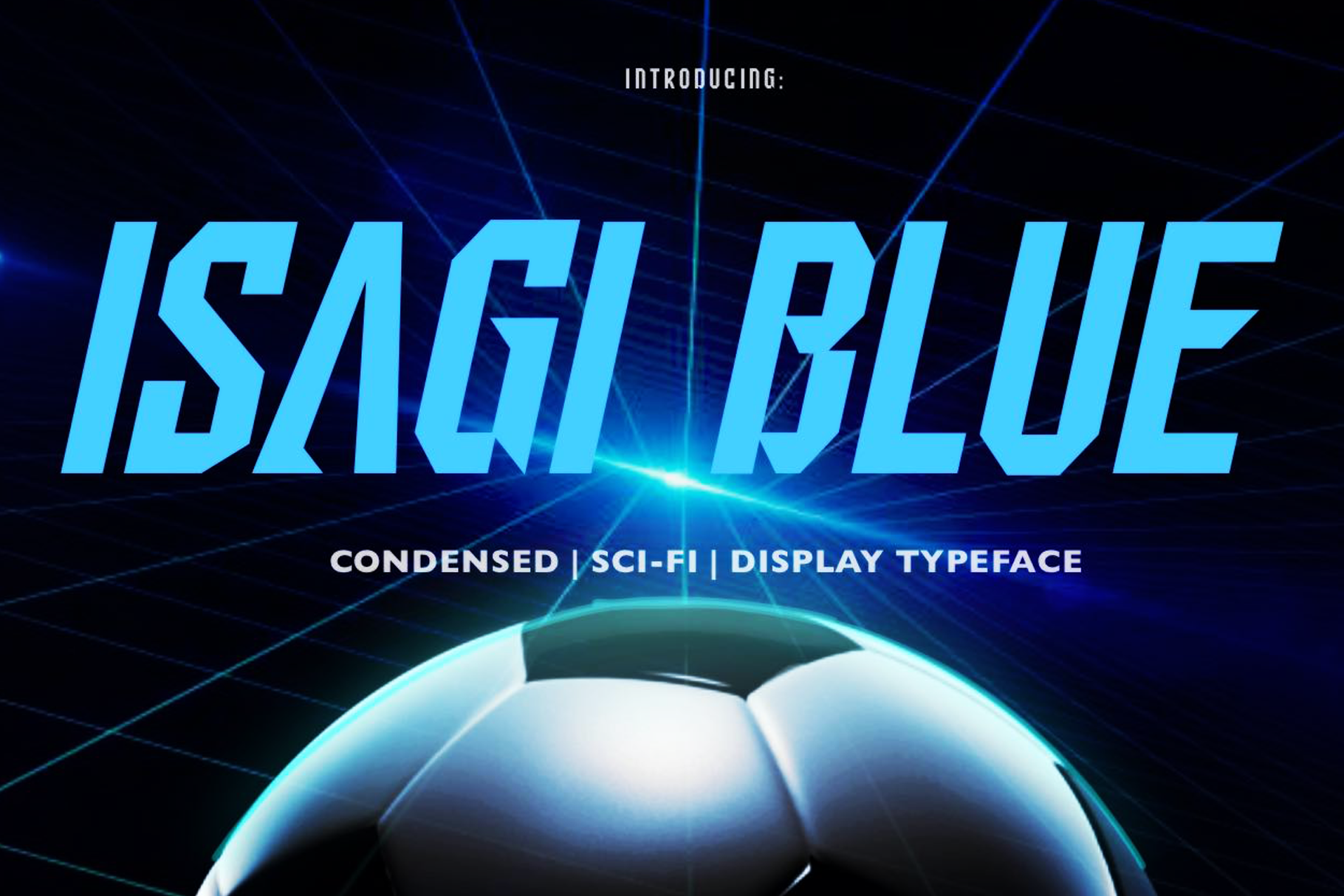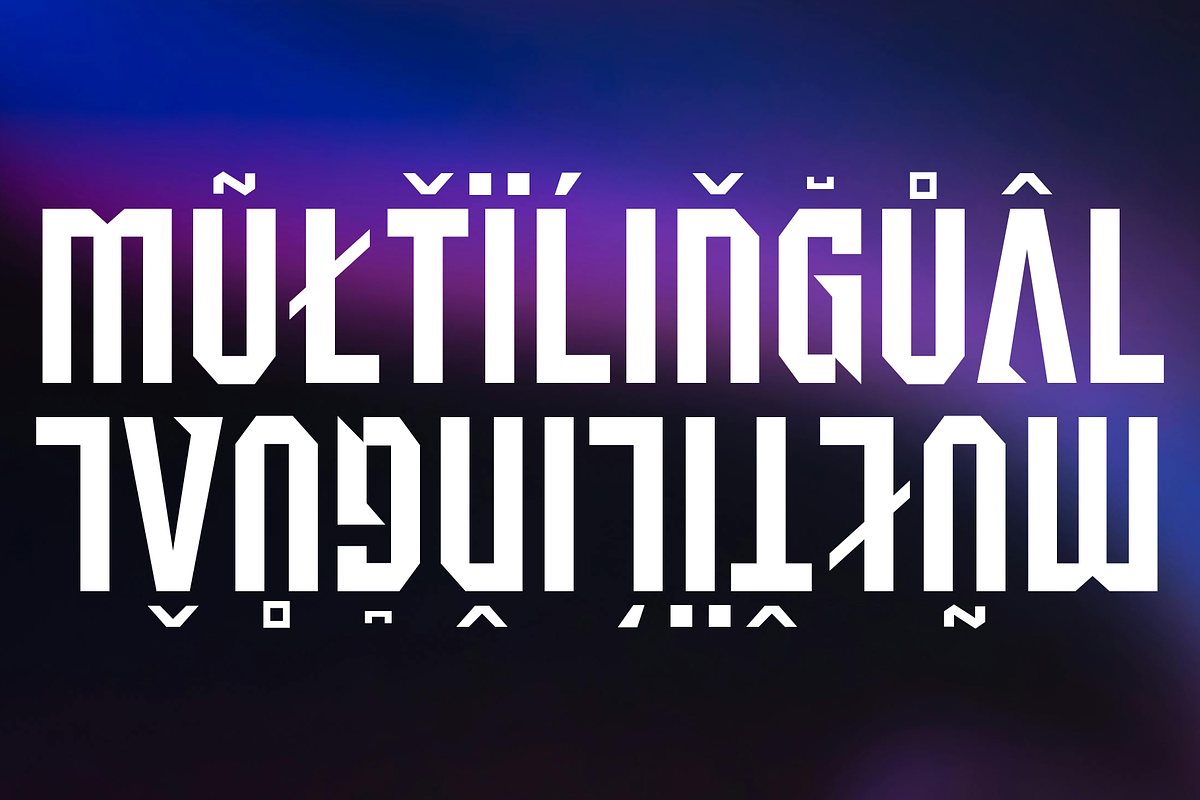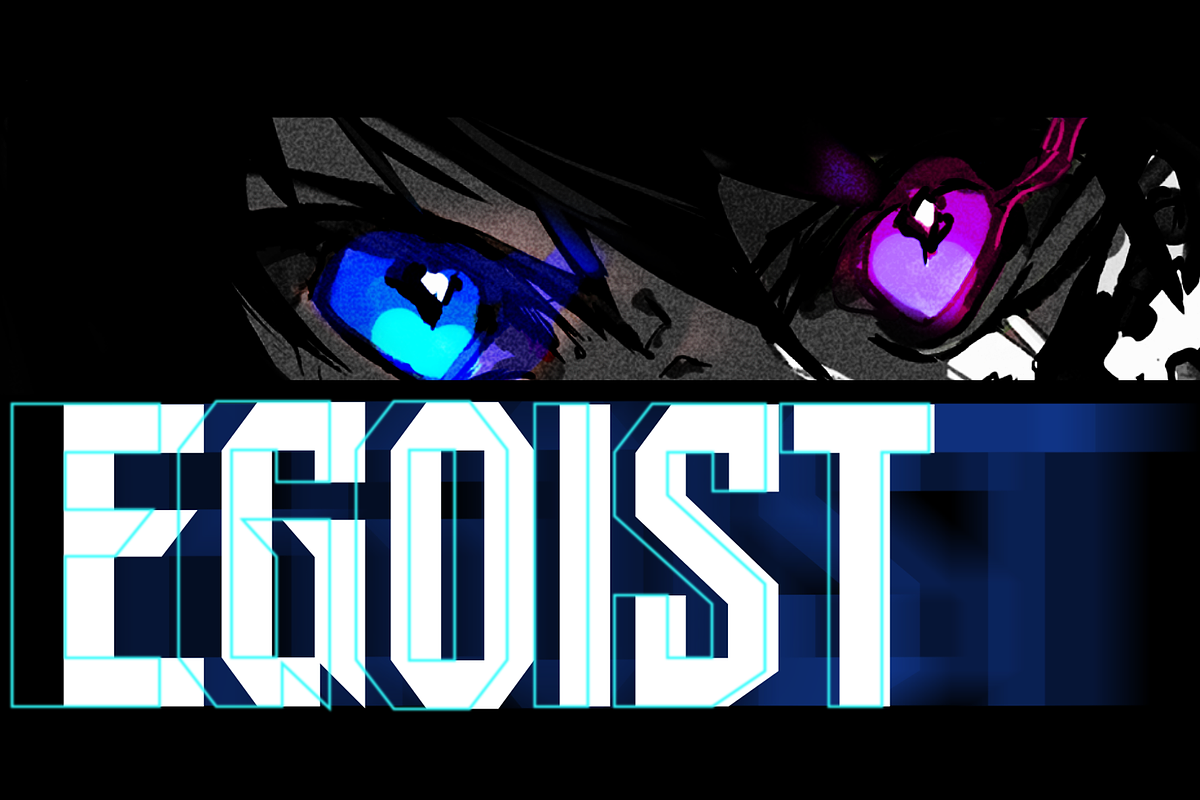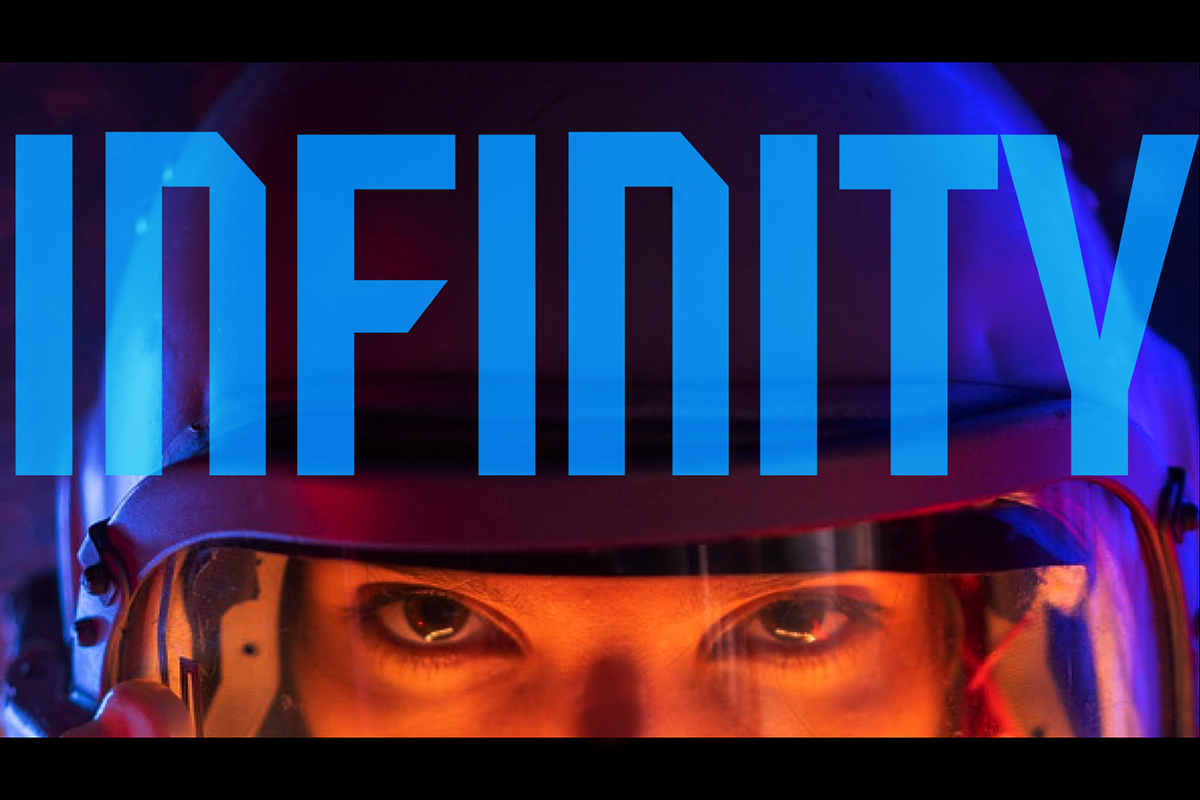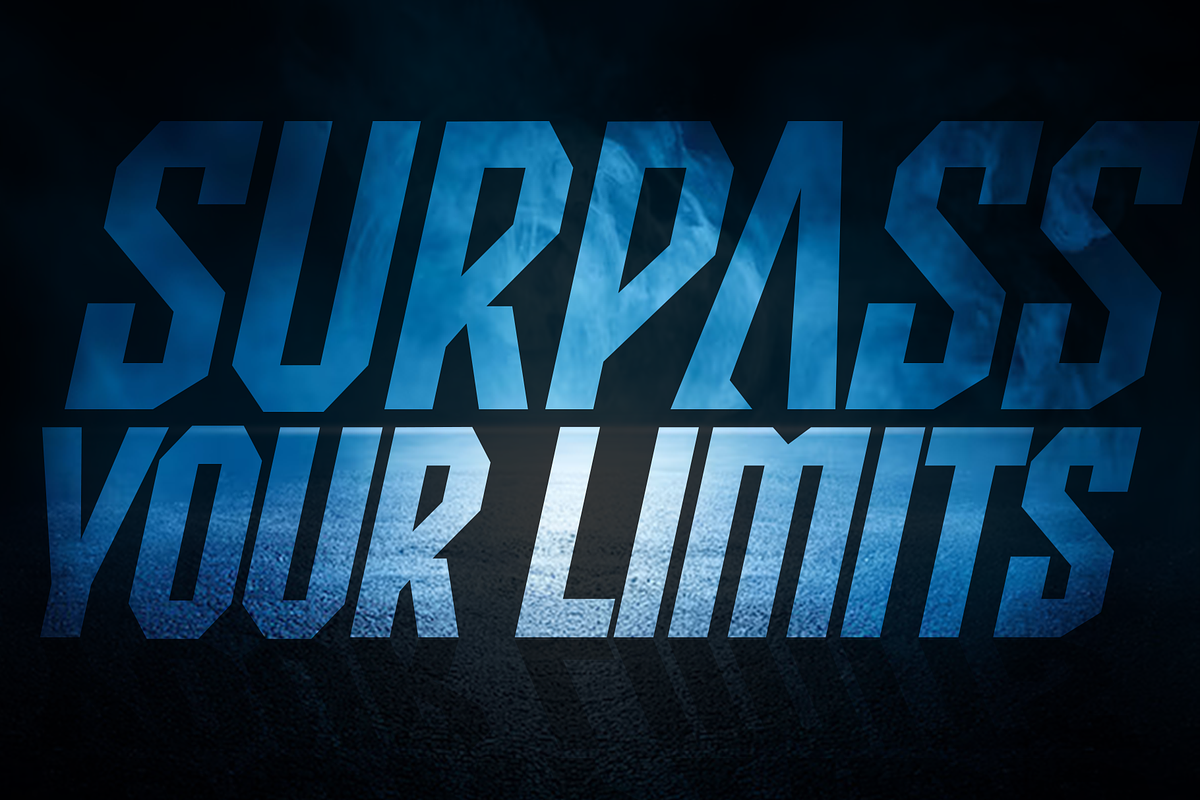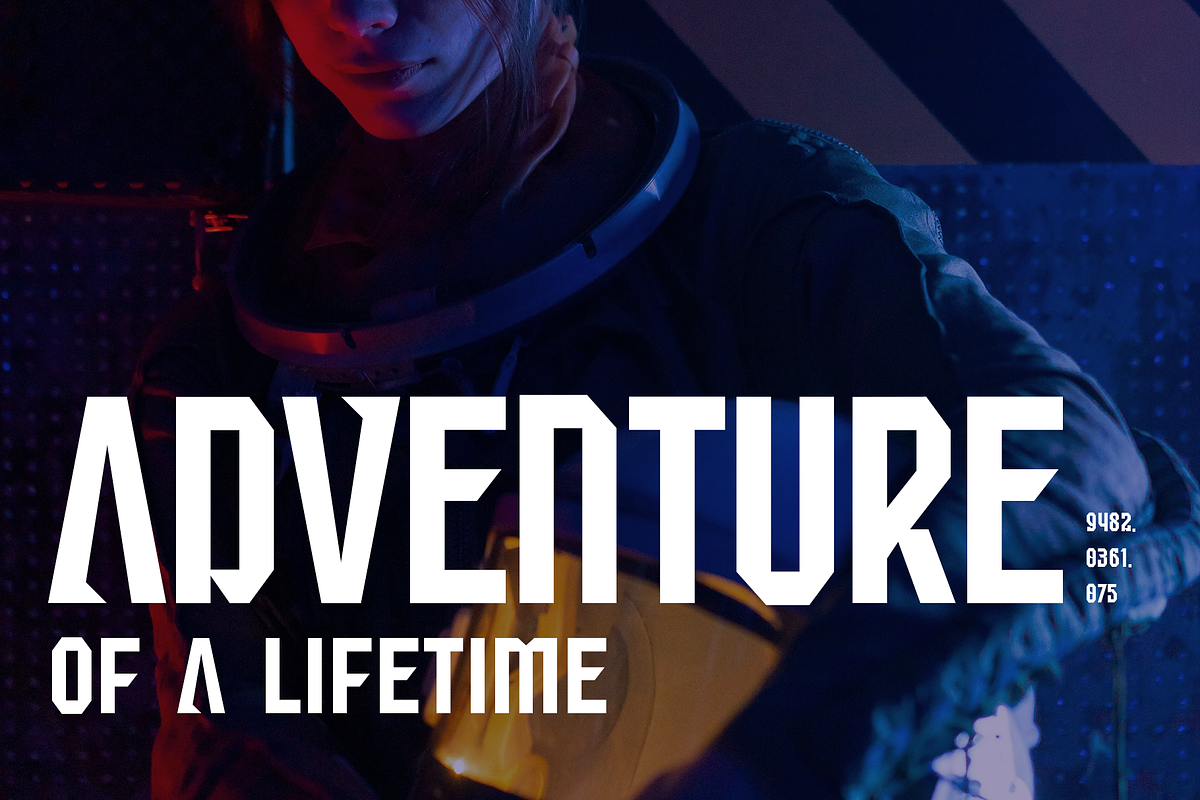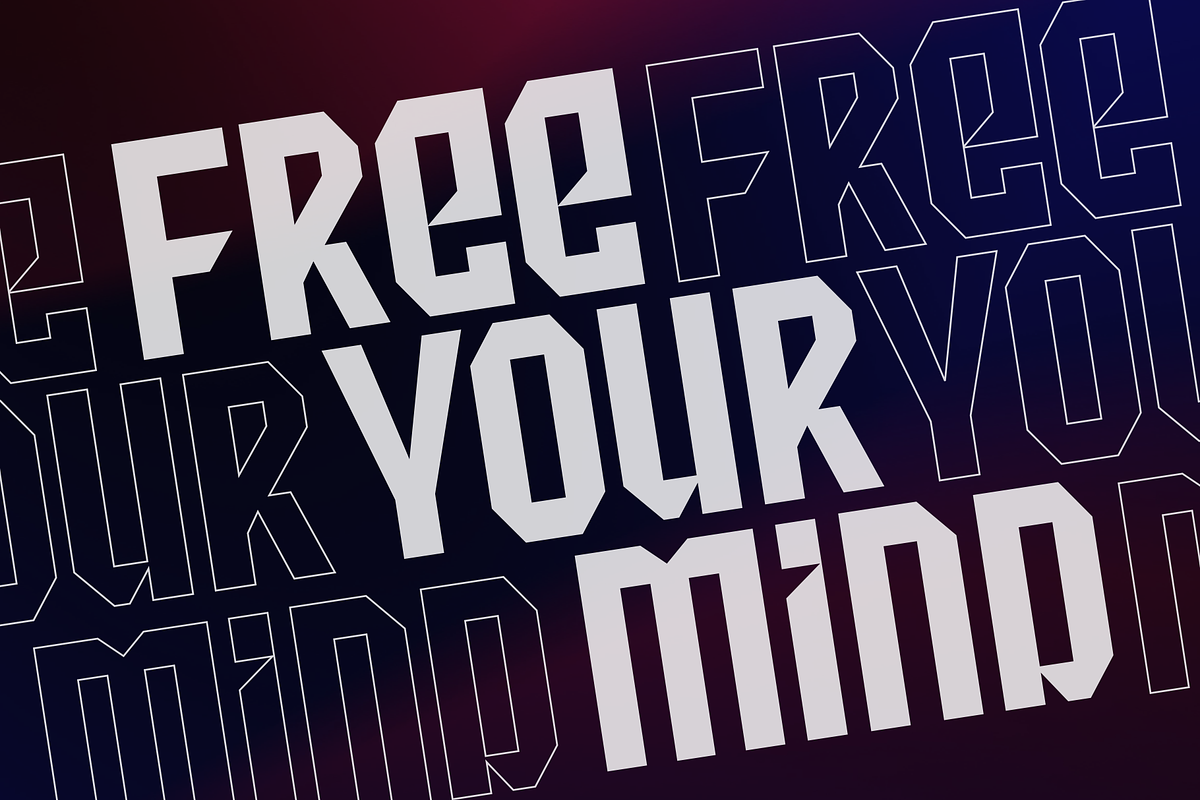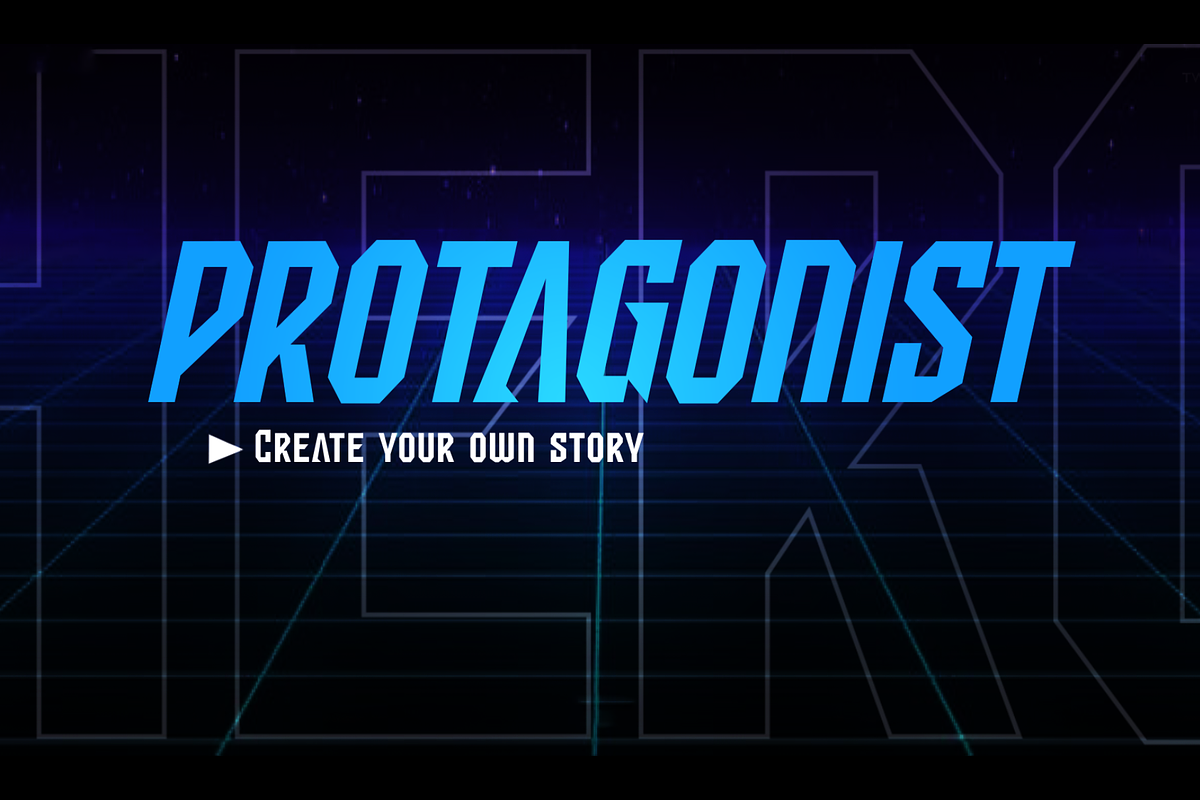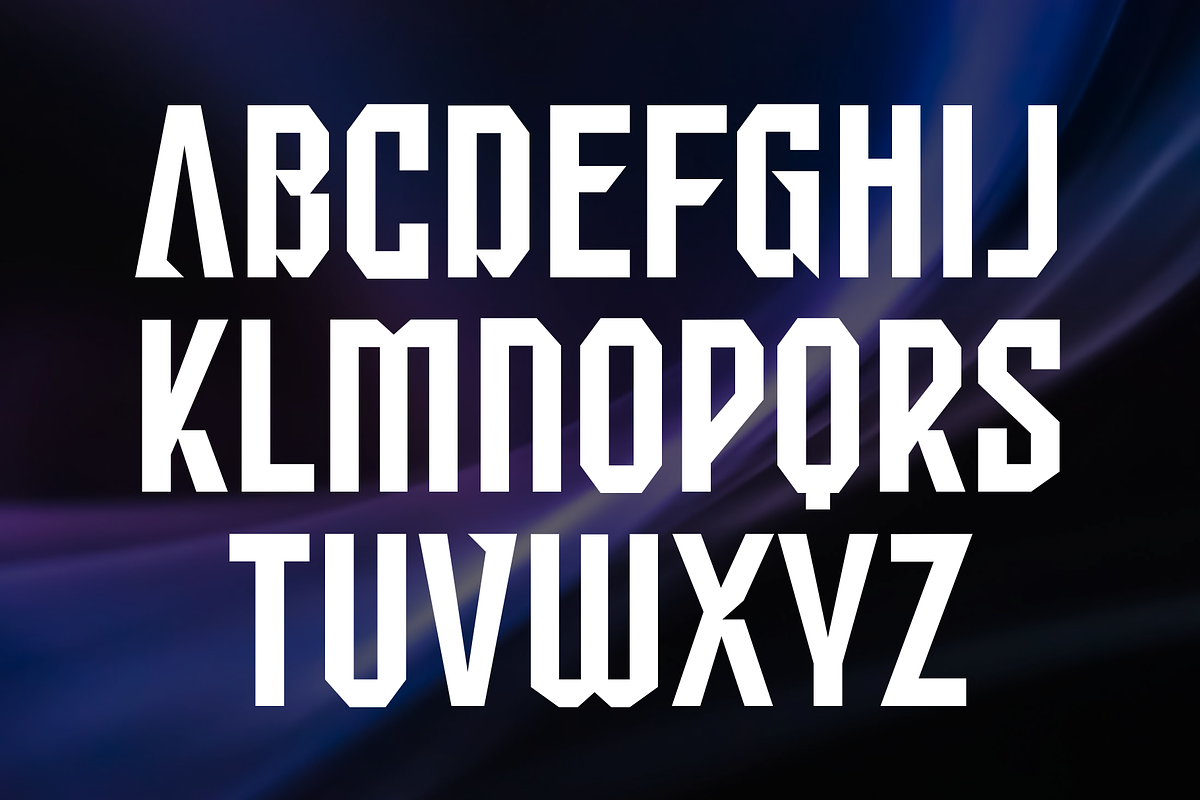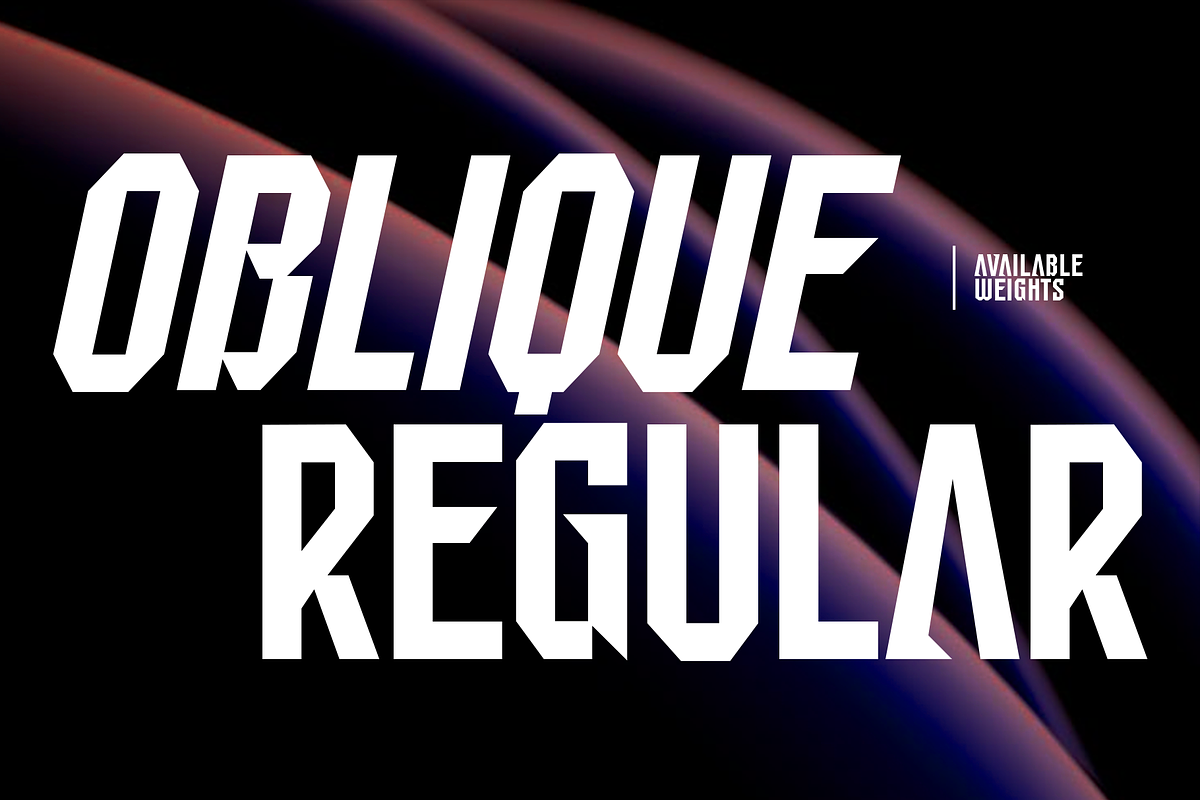
Isagi Blue- Futuristic Typeface
Isagi Blue is a bold, futuristic condensed display typeface inspired by the hit anime series Blue Lock. Combining sleek sci-fi style, athletic edge, and dynamic energy, this font brings a sharp, high-impact presence to any design.
Crafted for captivating headlines, sports branding, and jersey-inspired visuals, Isagi Blue is perfect for projects that demand attention and movement.
⚡ Ideal For:
- Sports branding and jersey designs
- Anime-inspired posters and graphics
- Sci-fi titles and digital interfaces
- Streetwear apparel, covers, and social media content
🔧 Features:
- Condensed uppercase characters for strong impact
- Futuristic and athletic styling
- Edgy geometry for dynamic compositions
- Works great in both digital and print designs
- Two (2) weights are currently available. (Regular and Oblique)
- All caps design with clean spacing
Command attention with Isagi Blue - a modern, action-packed typeface built for designers who want to blend anime culture with bold, futuristic design